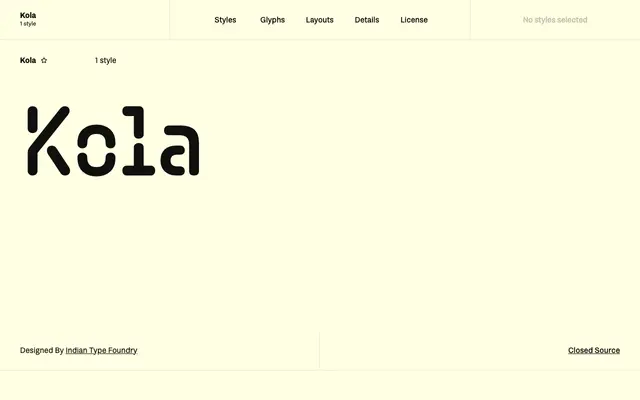
Kola
A stencil sans serif by Paris-based designer Jean-Baptiste Morizot, with rounded stroke endings and proportions that recall LED display lettering.
Designed by Jean-Baptiste Morizot and released through Fontshare in 2021, Kola applies a stencil treatment to a condensed sans structure, with rounded terminals and large counterforms that remain legible at scale. The x-height is tall, with ascenders reaching cap height, and the diacritics extend conspicuously above both — a considered choice for multilingual display use across 135 languages. Stencil bridges are placed dynamically on letterforms such as the 'K', 'j' and 'r', giving the face a degree of personality within an otherwise restrained, near-geometric skeleton.
Categorised as Display by the foundry; a stencil-style sans serif with rounded stroke endings and an LED-display quality, making it unsuitable for running text and clearly display-oriented.